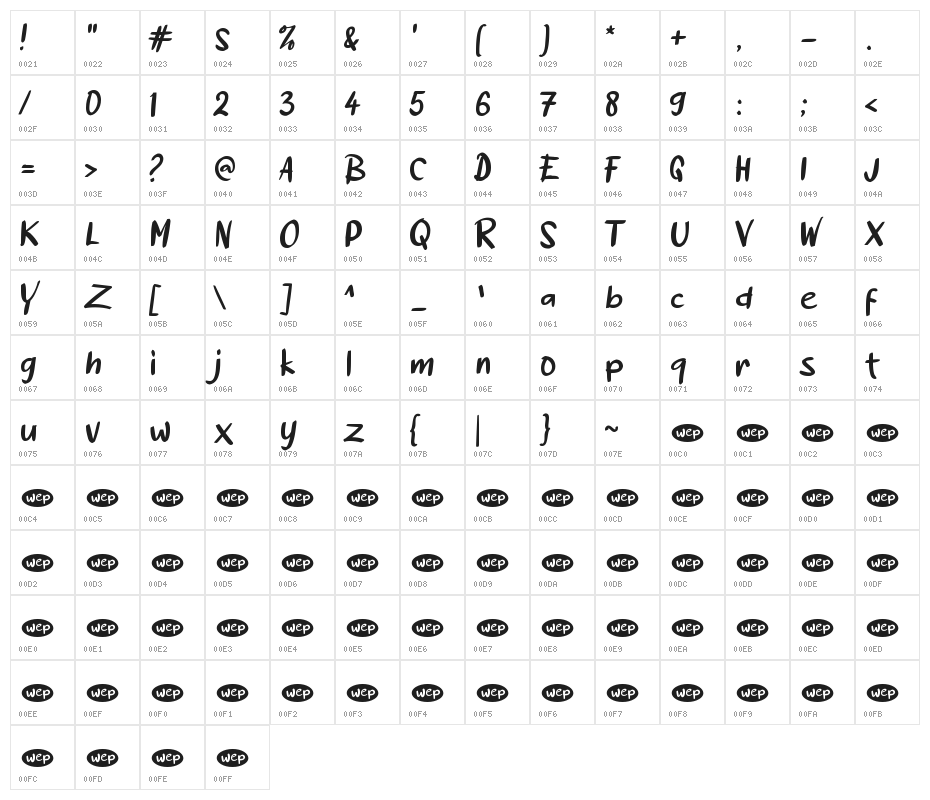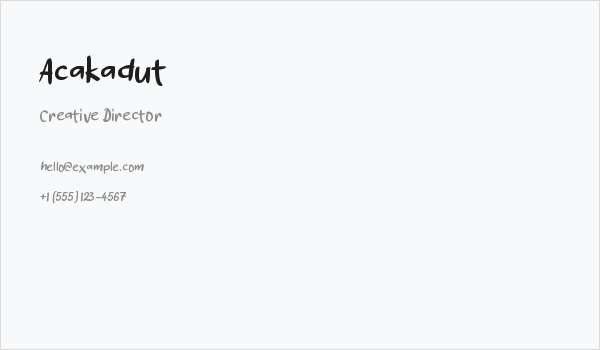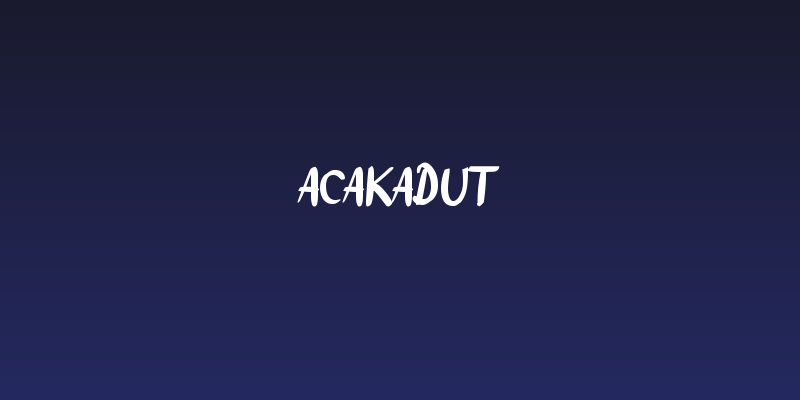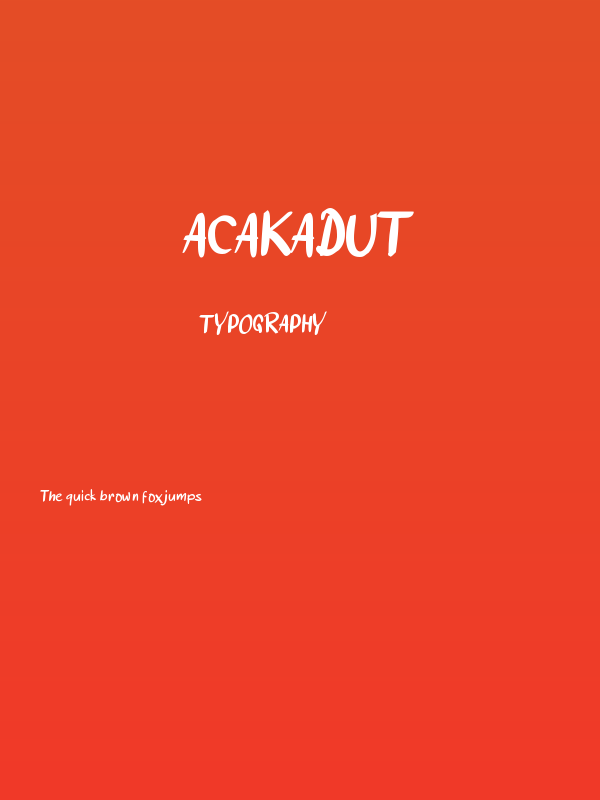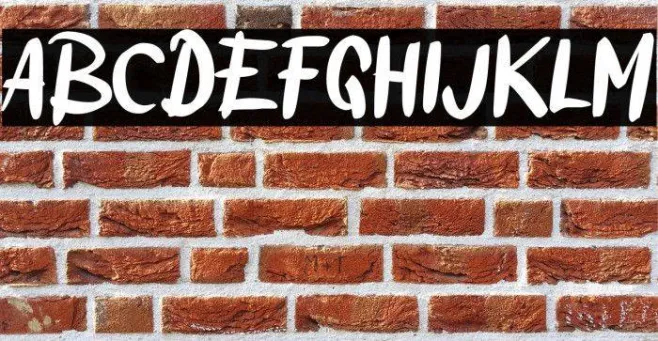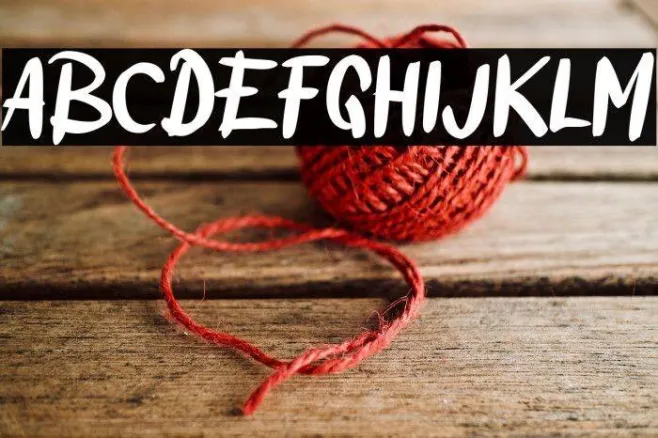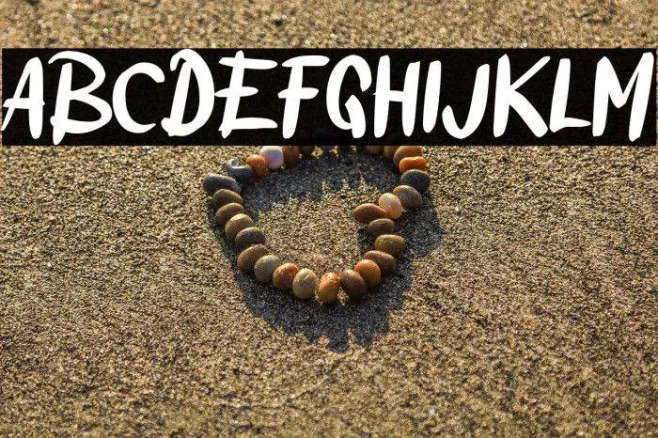
Acakadut Font
Acakadut Description
This font features a playful and energetic handwritten style, characterized by its bold and slightly irregular strokes. The letters have a casual, informal appearance, with a dynamic flow that suggests movement and spontaneity. The uppercase and lowercase letters maintain a consistent style, while the numerals and special characters complement the overall aesthetic. This font's lively and approachable design makes it suitable for projects that require a personal touch or a sense of fun and creativity.
| Use Case | Logos, Headlines, Informal Text |
| Proposed Projects | Ideal for greeting cards, children's books, playful branding, and social media graphics. |